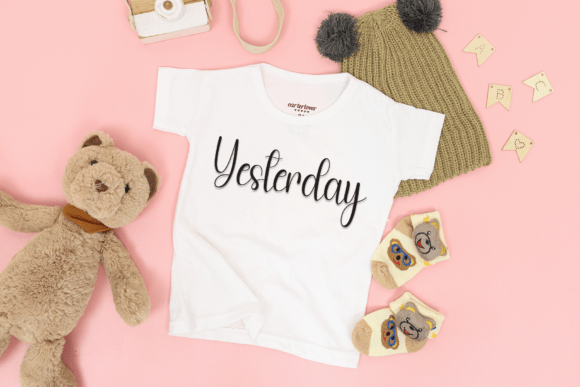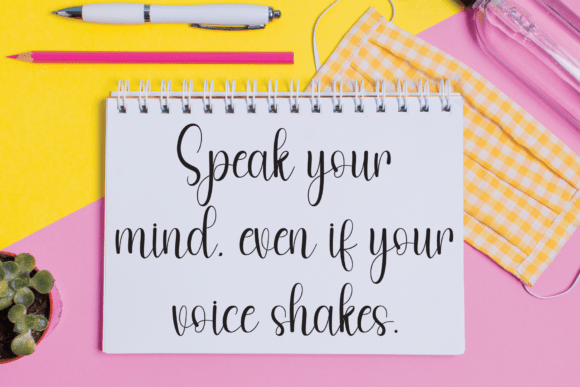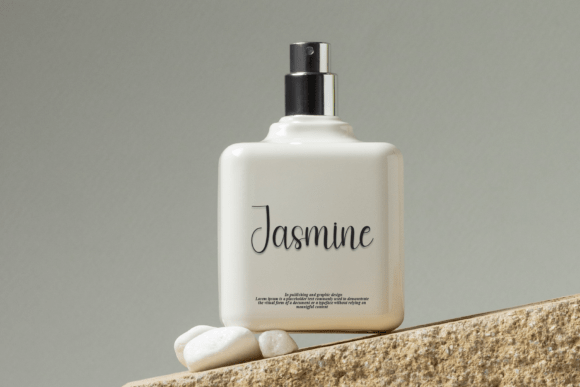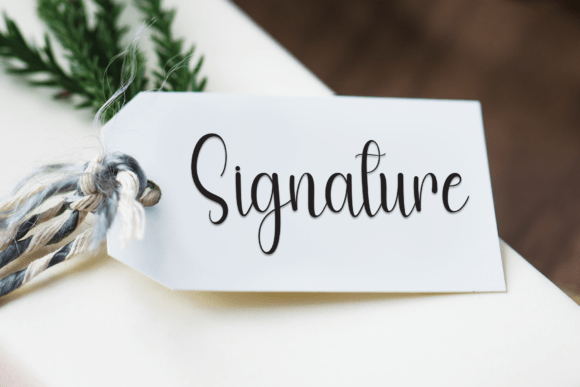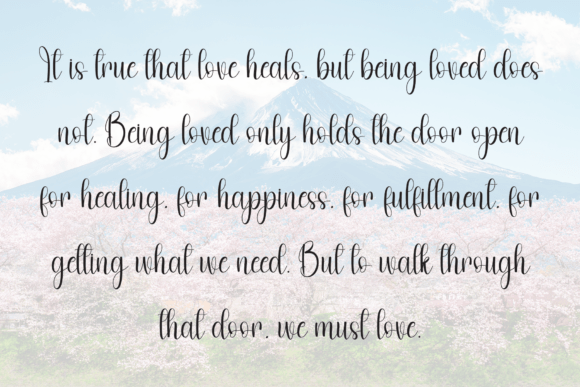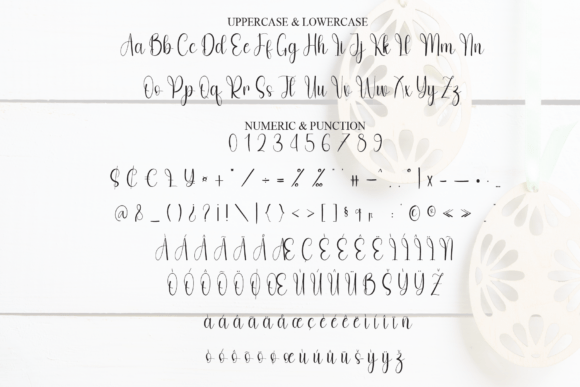
Easter Ornament Font: Elevate Your Designs with Artistic Flair and Contemporary Elegance
Are you a designer or crafter looking for a font that can add a touch of sophistication and creativity to your Easter-themed projects? Look no further than the Easter Ornament Font, a stylish script font that exudes artistic flair and contemporary elegance. In this article, we’ll dive into the features and benefits of this beautiful font, and explore how it can elevate your designs and take your creativity to the next level.
What is Easter Ornament Font?
Easter Ornament Font is a modern script font that captures the essence of hand-painted calligraphy with a fresh and contemporary twist. Featuring fluid brush strokes, dynamic curves, and expressive letterforms, this font is perfect for designers and crafters who want to add a creative and sophisticated touch to their Easter-themed projects.
Key Features of Easter Ornament Font
- Fluid Brush Strokes: Easter Ornament Font features fluid brush strokes that give it a natural, hand-painted look. This unique feature adds a touch of elegance and sophistication to any design.
- Dynamic Curves: The font’s dynamic curves and expressive letterforms make it perfect for creating eye-catching and engaging designs.
- Modern Twist: Easter Ornament Font takes traditional calligraphy to the next level with its modern twist, making it ideal for designers and crafters who want to create fresh and contemporary designs.
- Versatility: This font is versatile and can be used for a wide range of design projects, including logos, invitations, packaging, and social media graphics.
Why Choose Easter Ornament Font?
So, why choose Easter Ornament Font for your Easter-themed projects? Here are just a few reasons:
- Unique and Creative: Easter Ornament Font is a unique and creative font that will set your designs apart from the rest.
- Elegant and Sophisticated: The font’s elegant and sophisticated look makes it perfect for creating high-end designs that exude luxury and refinement.
Easter Ornament Font in Action
Easter Ornament Font is perfect for a wide range of Easter-themed design projects, including:
- Easter Invitations: Create beautiful and elegant Easter invitations that will impress your friends and family.
- Easter Decorations: Use Easter Ornament Font to create stunning Easter decorations, such as garlands, banners, and signs.
- Easter Packaging: Add a touch of elegance and sophistication to your Easter packaging with Easter Ornament Font.
- Easter Social Media Graphics: Create eye-catching Easter social media graphics that will engage your followers and drive traffic to your website.
Easter Ornament Font is a stylish script font that exudes artistic flair and contemporary elegance. With its fluid brush strokes, dynamic curves, and expressive letterforms, it’s perfect for designers and crafters who want to add a creative and sophisticated touch to their Easter-themed projects. Whether you’re creating Easter invitations, decorations, packaging, or social media graphics, Easter Ornament Font is the perfect choice. So why wait? Download Easter Ornament Font today and take your Easter designs to the next level!